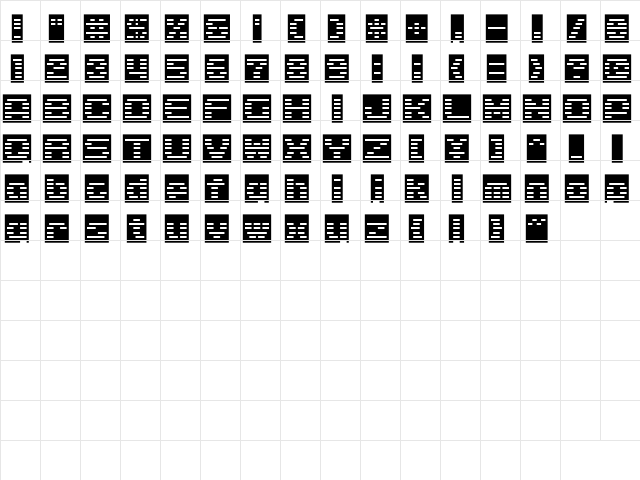
D3 DigiBitMapism type C wide Regular
Design Context for D3 DigiBitMapism type C wide Typeface
D3 DigiBitMapism type C wide celebrates the constraints of early digital type, turning pixel geometry into a distinctive and immediately recognisable style.
A natural choice for retro game titles, chiptune music branding, 8-bit UI, and digital nostalgia projects.
Pro Tip: Pair D3 DigiBitMapism type C wide with flat colour palettes and simple geometric UI elements to reinforce its digital aesthetic.